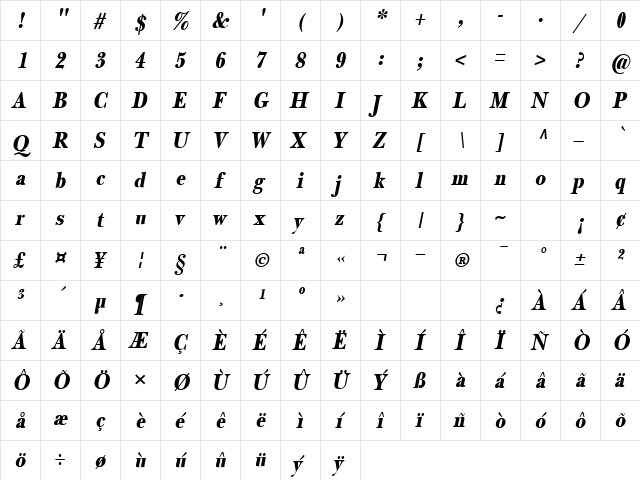
NewBaskerThin Bold-Oblique Font Preview
Design Context for NewBaskerThin Typeface
NewBaskerThin offers clean, dependable letterforms without strong stylistic allegiance, making it a practical choice for designers who need flexibility. The dynamic lean of this cut emphasises speed and emphasis in any layout. The heavy weight commands attention and anchors typographic hierarchies.
Pro Tip: Try NewBaskerThin for annotation and caption copy alongside an upright companion — the contrast in angle creates a dynamic but ordered typographic system.